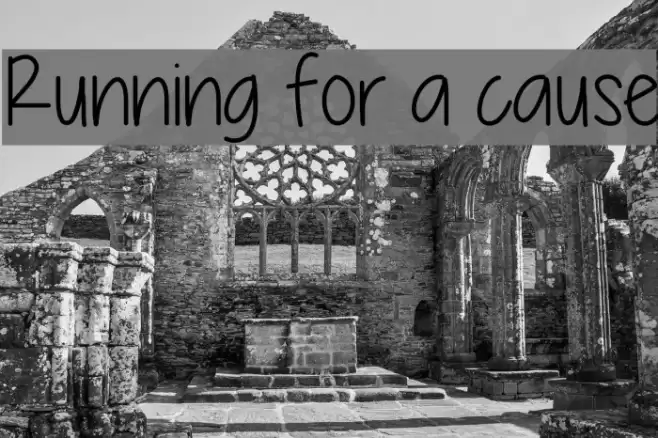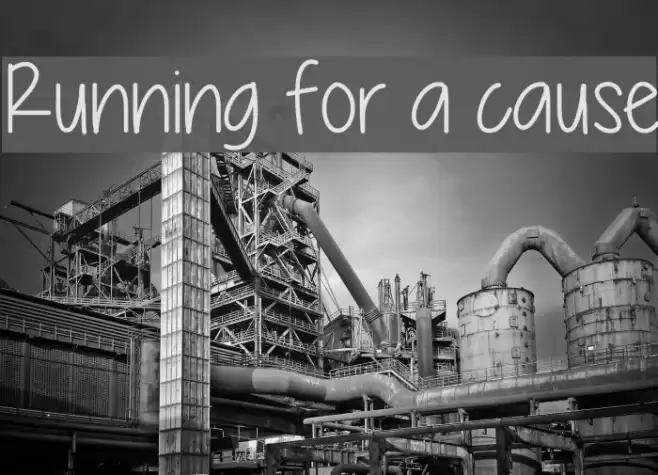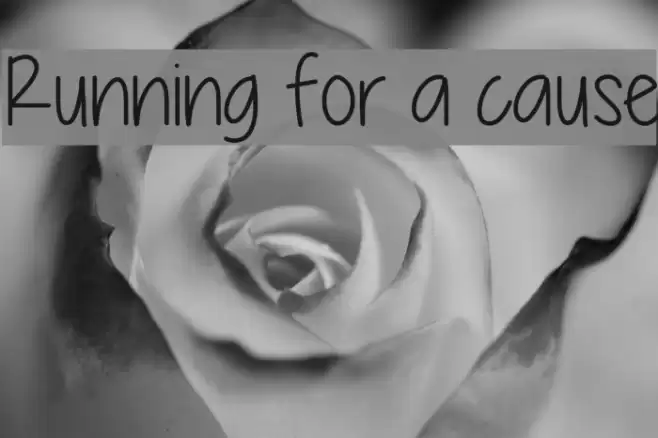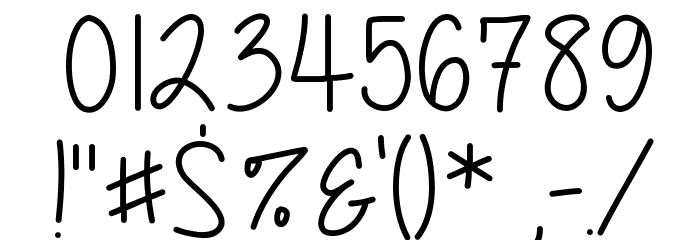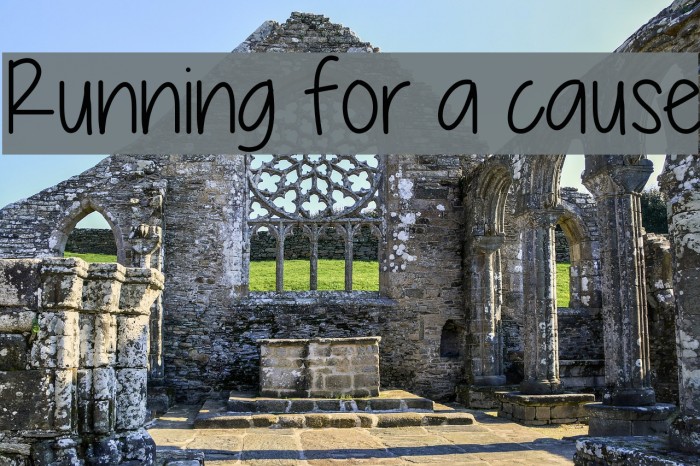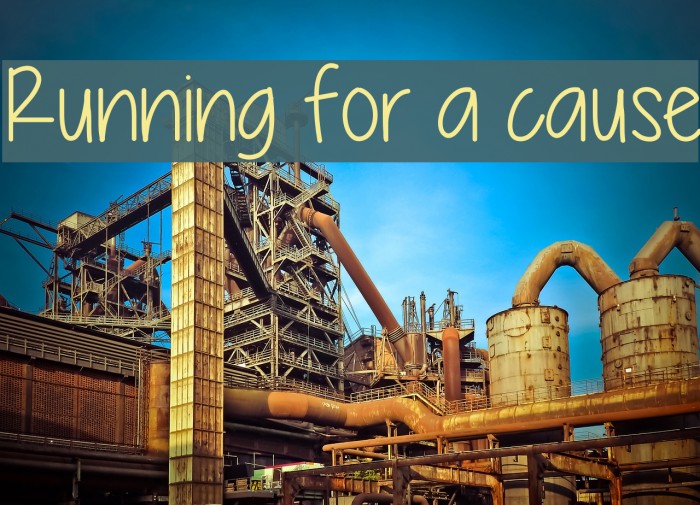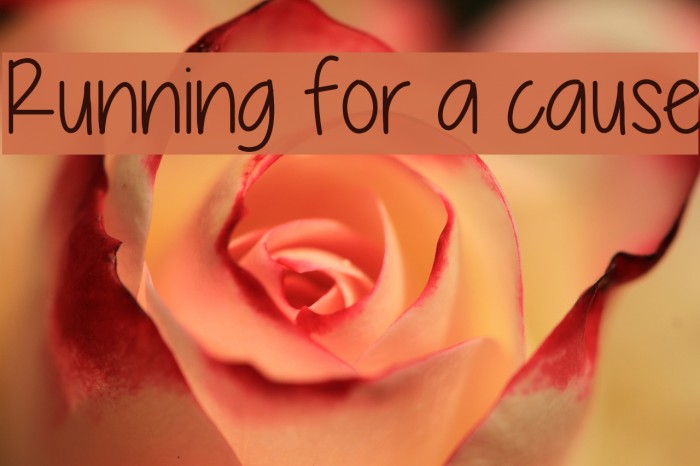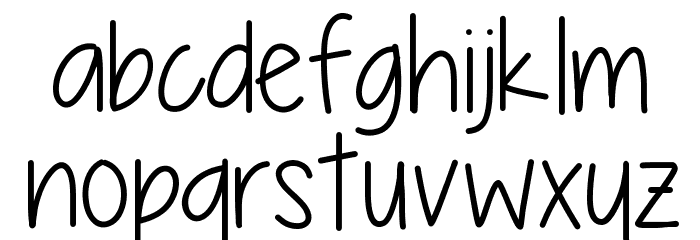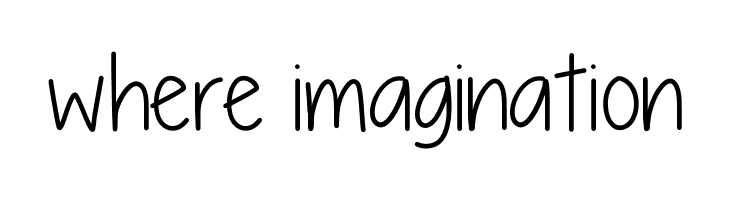
Running for a cause Font
Running for a cause Description
This font features a playful and casual handwritten style, characterized by its smooth curves and slightly irregular strokes that give it a friendly and approachable feel. The uppercase and lowercase letters maintain a consistent height, contributing to a harmonious appearance. The numerals and special characters are designed to match the overall aesthetic, ensuring a cohesive look across all glyphs. The font's informal nature makes it ideal for projects that require a personal touch, such as greeting cards, invitations, or children's books. Its legibility and charm make it suitable for both digital and print media.
A playful handwritten font with smooth curves and a casual style from Uncategorized fonts.
- Proposed Projects: Ideal for greeting cards, invitations, children's books, and personal projects.
- Overall Style: Casual
- Use Case: Headlines, Invitations, Greeting Cards